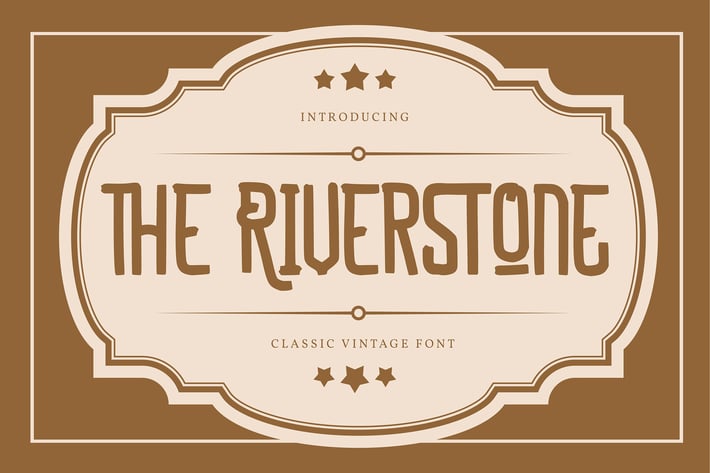
The Riverstone | Classic Vintage Font
The Riverstone | Classic Vintage Font with a calligraphy style, So beautiful on invitation like greeting cards, branding materials, business cards, quotes, posters, and more!